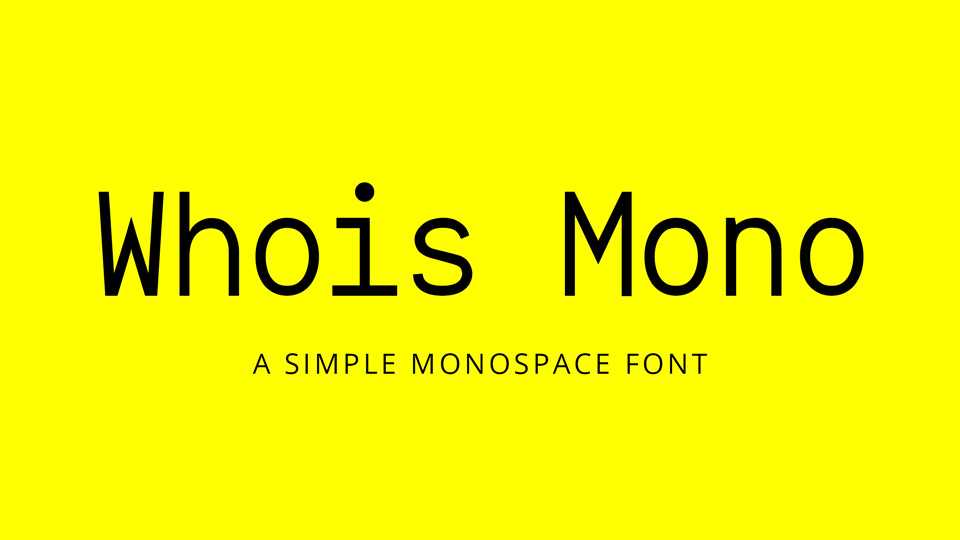
Download Whois Mono font, a simple monospace typeface. Whois Mono font has good readability and readability, suitable for editorial use, web and applications.
Designer: Raphaël Bastide